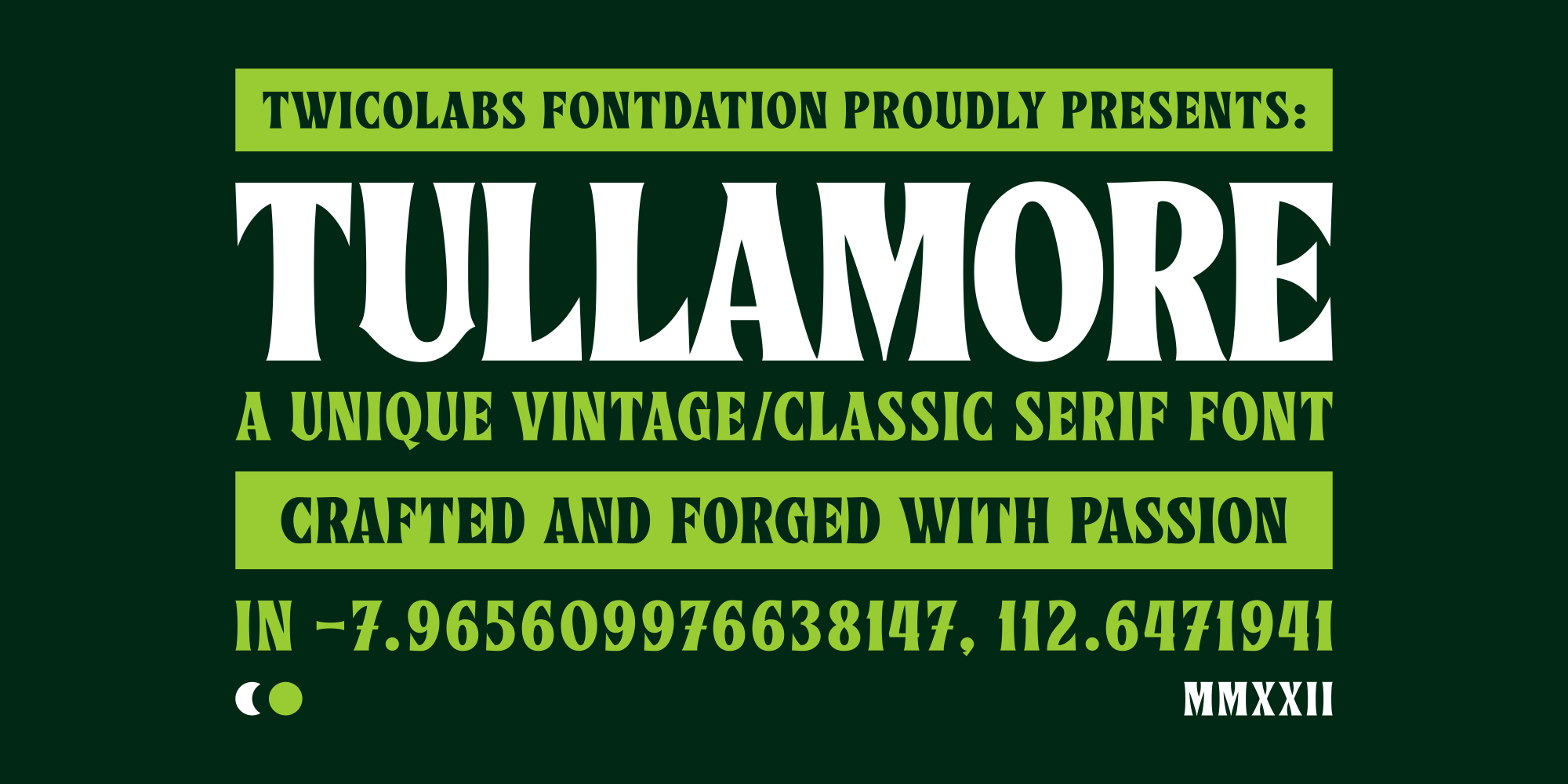
Tullamore Font excels in Irish heritage branding, traditional Celtic pub signage, whiskey distillery packaging, Gaelic cultural center materials, Irish folk music festival promotions, Celtic jewelry boutique communications, Irish dance academy materials, and authentic Emerald Isle tourism marketing. This distinguished typeface brings Irish charm and Celtic tradition to any project requiring authentic Gaelic typography with heritage authenticity and timeless Irish cultural appeal.
What makes Tullamore Font exciting is its perfect embodiment of Irish heritage and Celtic tradition that captures the warm hospitality of the Emerald Isle and the rich storytelling culture of ancient Gaelic traditions. The font features robust letterforms with Celtic-inspired details that mirror the strength of Irish character and the enduring beauty of Celtic artistry while maintaining excellent readability for contemporary Irish business applications. Its authentic Irish charm and cultural sophistication make it ideal for brands celebrating Irish heritage, Celtic culture, and the legendary warmth of Irish hospitality. The typeface's Celtic appeal ensures instant recognition of Irish authenticity and cultural pride.
The Tullamore Font family includes Regular, Bold, Light, Italic, and Celtic variants, each maintaining the signature Irish character while offering different expressions of Gaelic heritage and Celtic sophistication. The family features Celtic symbols, Irish decorative elements, and traditional Gaelic characters that enhance its versatility for Irish cultural and heritage branding projects. These variants provide comprehensive tools for creating authentic Irish typography with genuine Celtic character and cultural authenticity.
Whether you're designing for Irish businesses, Celtic cultural organizations, or heritage tourism brands, Tullamore Font Free Download delivers the authentic Irish charm that defines genuine Celtic typography. Its combination of Gaelic heritage and Irish warmth makes it perfect for communicating Celtic culture, Irish traditions, and Emerald Isle hospitality with genuine Tullamore Font Free Download character and unforgettable Irish authenticity.